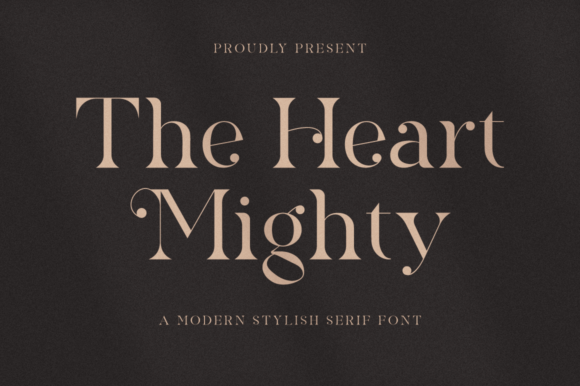
Within the realm of typography, there exists a world of boundless creativity, where letters, like delicate brushstrokes, dance and intertwine to form an alluring symphony of visual expression. Among this captivating ensemble, The Heart Mighty Font emerges as a true masterpiece, a serif font that embodies both elegance and finesse.
Crafted by the visionary artists at RockboyStudio, The Heart Mighty Font is a testament to their unwavering dedication to excellence. Its meticulously designed characters exude an aura of sophistication, inviting your imagination to embark on a journey of boundless possibilities.
Immerse yourself in the world of fashion, where The Heart Mighty Font graces magazine spreads, adorning editorials with its timeless allure. Its delicate strokes lend an air of refinement to every layout, transforming ordinary words into captivating statements that linger in the minds of readers.
Venture into the realm of culinary artistry, where The Heart Mighty Font transforms cooking websites into tantalizing visual feasts. Its graceful curves and flourishes add a touch of elegance to recipes, enticing foodies to embark on culinary adventures that ignite their senses.
Unleash your creativity on social media, where The Heart Mighty Font elevates your posts to new heights of engagement. Its visually striking characters command attention, captivating your audience with every scroll. Share your thoughts, your passions, and your stories, adorned with the beauty of The Heart Mighty Font.
Explore the world of branding and design, where The Heart Mighty Font lends its distinctive charm to labels and packaging. Its timeless appeal adds a touch of luxury and exclusivity, making your products stand out from the crowd and leaving a lasting impression on consumers.
The Heart Mighty Font is more than just a collection of letters; it's an invitation to unlock your creative potential. Its versatility knows no bounds, adapting seamlessly to a multitude of projects, from personal to professional. Whether you're a seasoned designer or just starting your creative journey, The Heart Mighty Font empowers you to express yourself with confidence and style.
As you embark on your creative endeavors, let The Heart Mighty Font be your steadfast companion, guiding you towards design excellence. Its elegant curves and delicate flourishes will transform your ideas into visually stunning masterpieces, leaving an indelible mark on the hearts and minds of your audience.